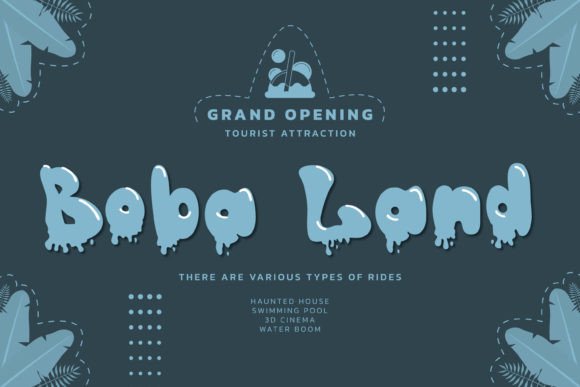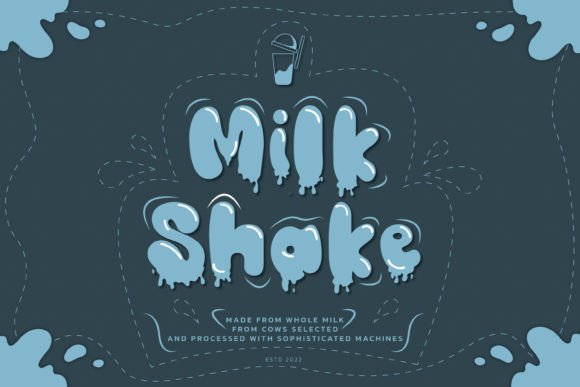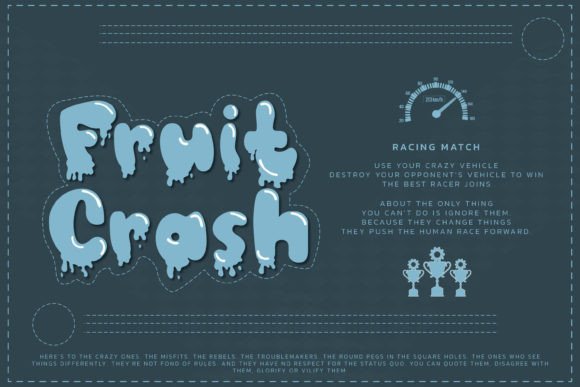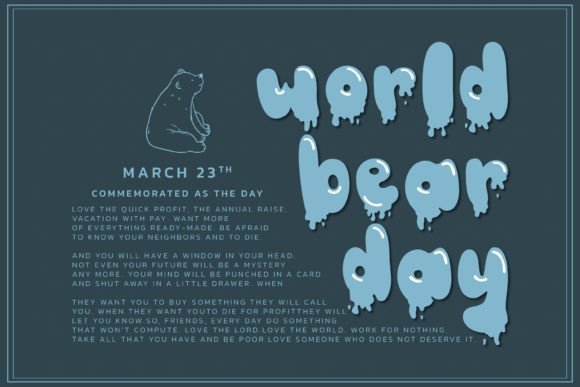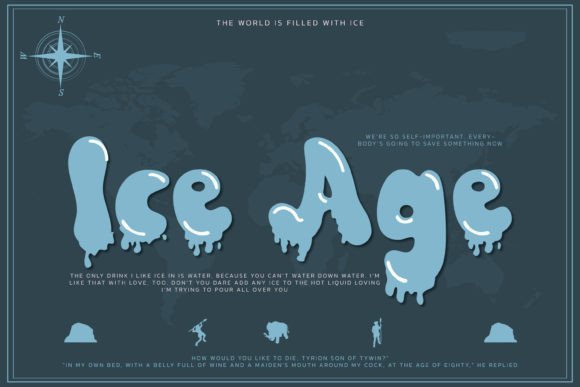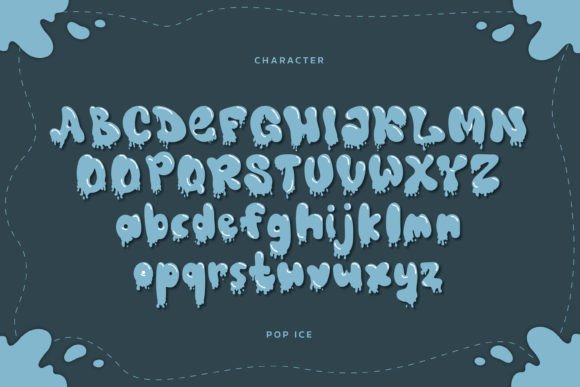
Introduction to Pop Ice Font
Pop Ice is a unique display font described by frosty textures.
Fun and versatile, this font is perfect for all your winter or Christmas-themed crafty ideas .
Key Features of Pop Ice Font
Why Choose Pop Ice Font?